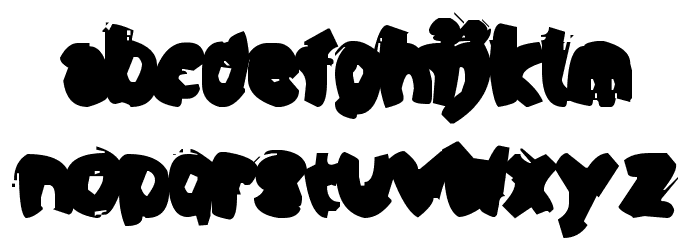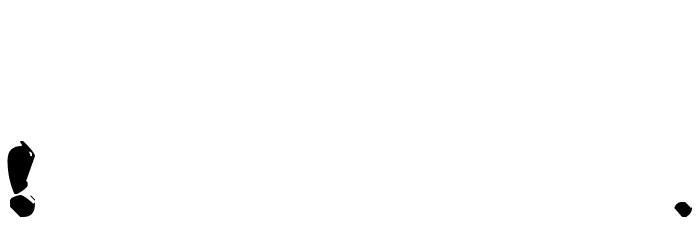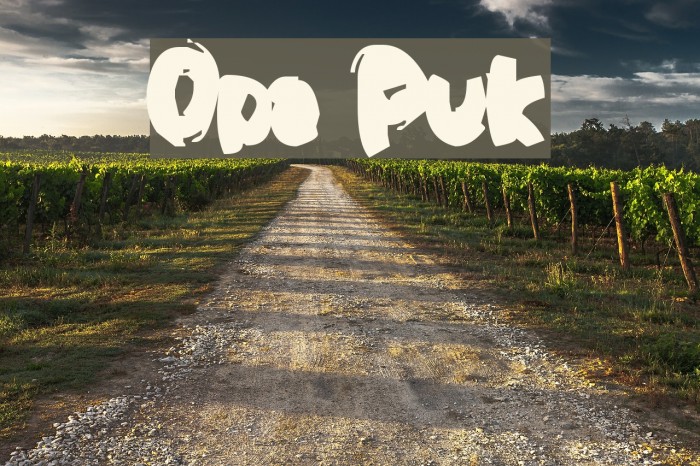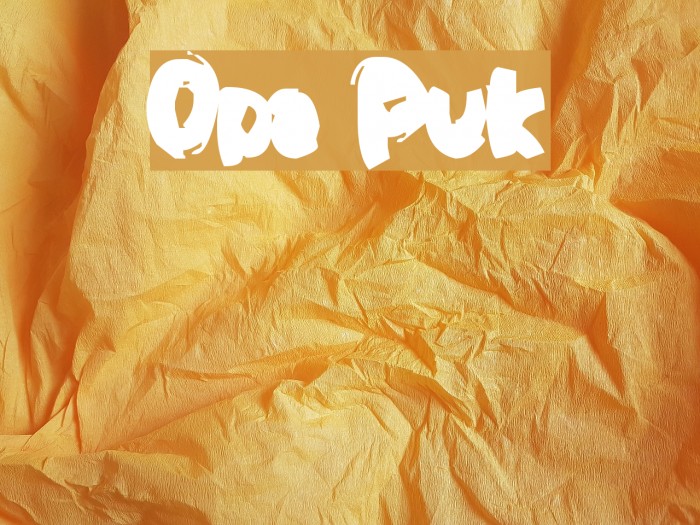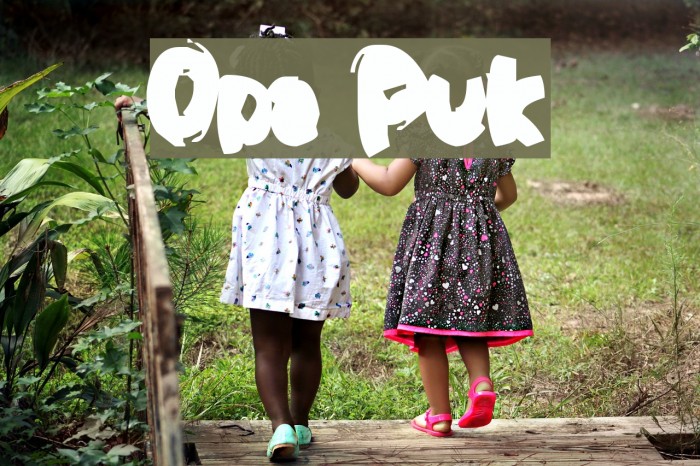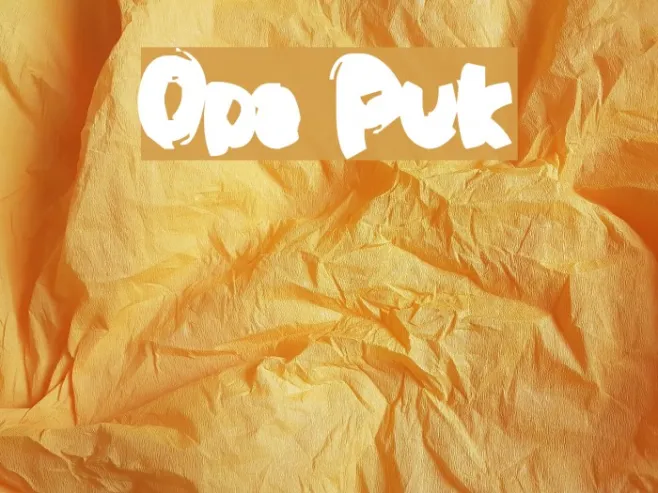
Opa Puk Font
This font features a bold and expressive style with a graffiti-like appearance. The characters are thick and heavily stylized, with a playful and energetic vibe. The strokes are uneven and dynamic, giving it a hand-painted look. The uppercase and lowercase letters maintain a consistent boldness, while the numbers and special characters follow the same artistic theme. This font is designed to stand out and make a statement, perfect for creative and unconventional projects.
A bold, graffiti-inspired font with a playful and dynamic style.
- Proposed Projects: Ideal for street art designs, urban-themed posters, music album covers, and creative branding projects.